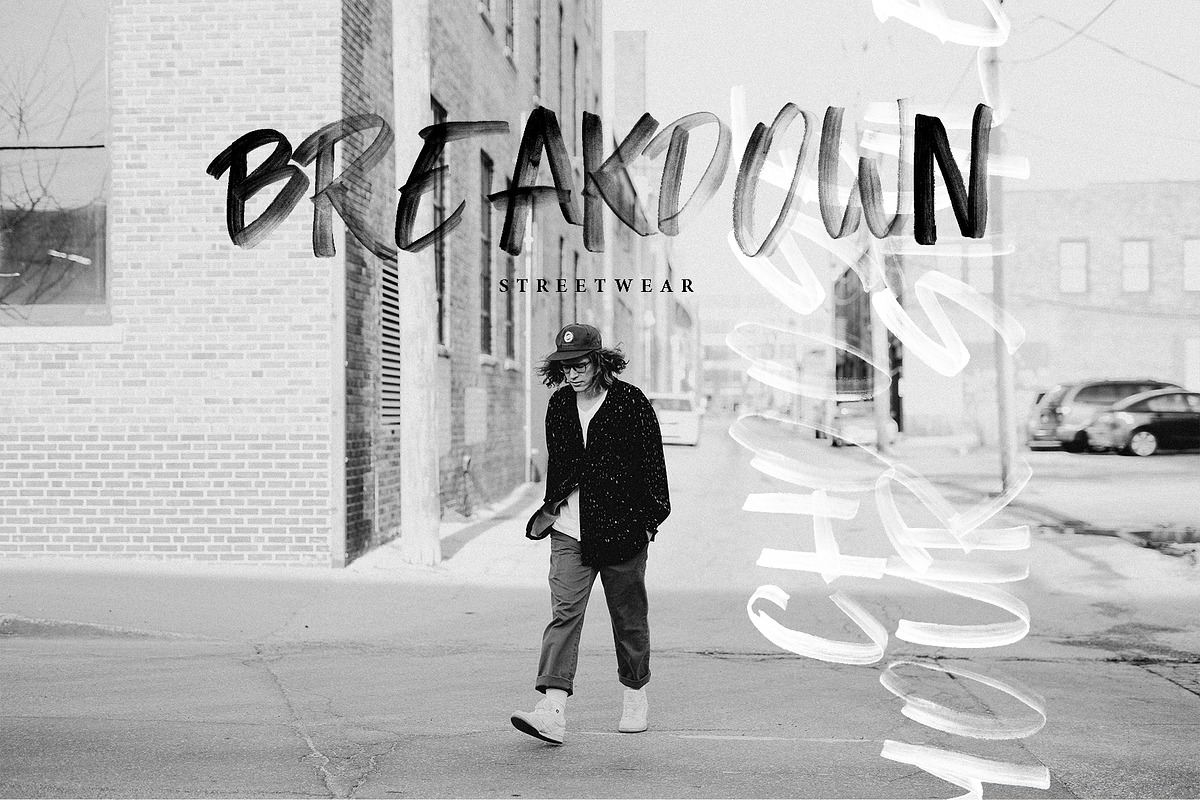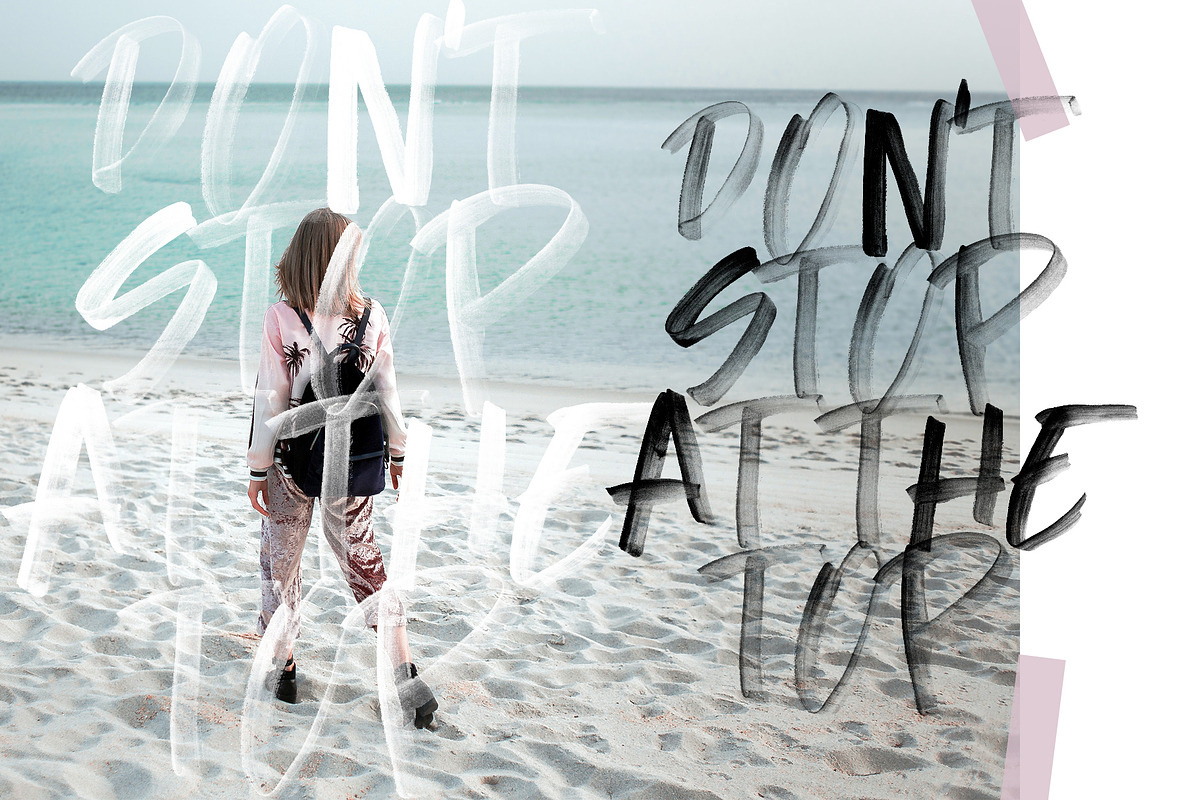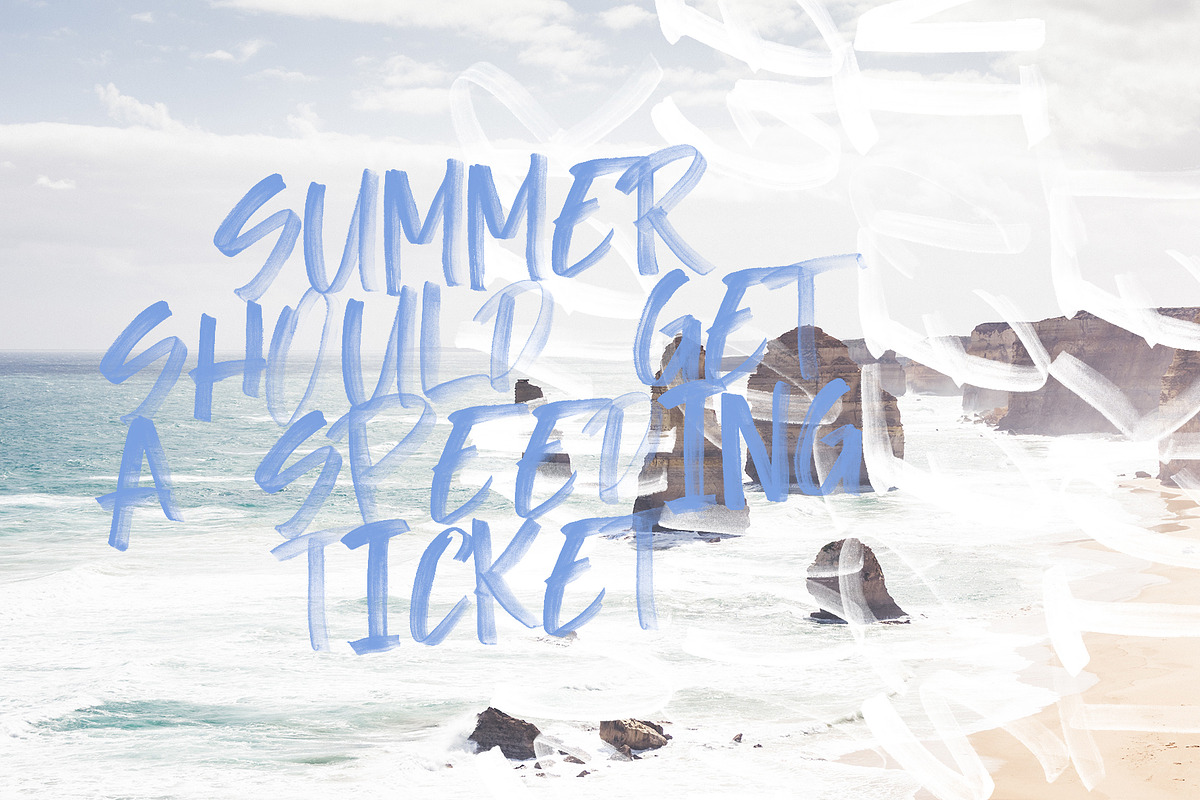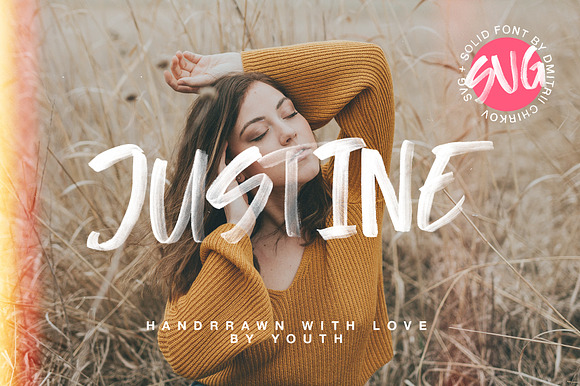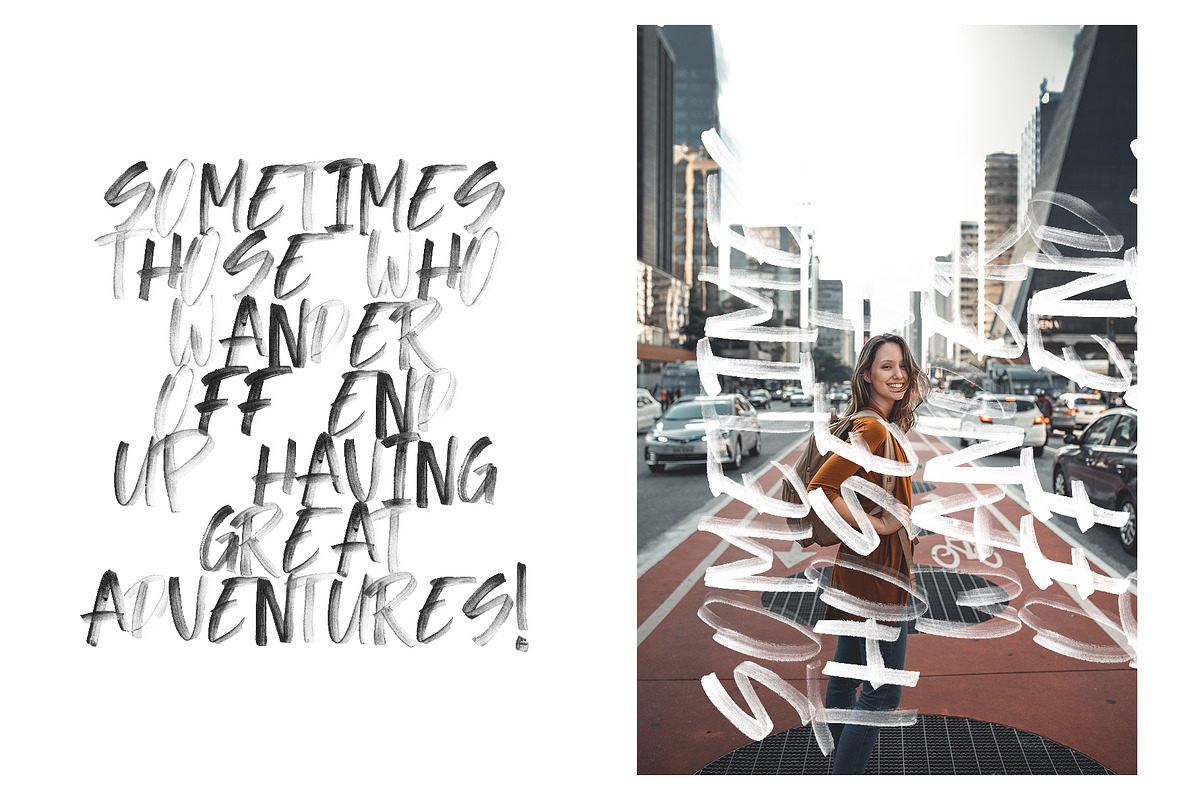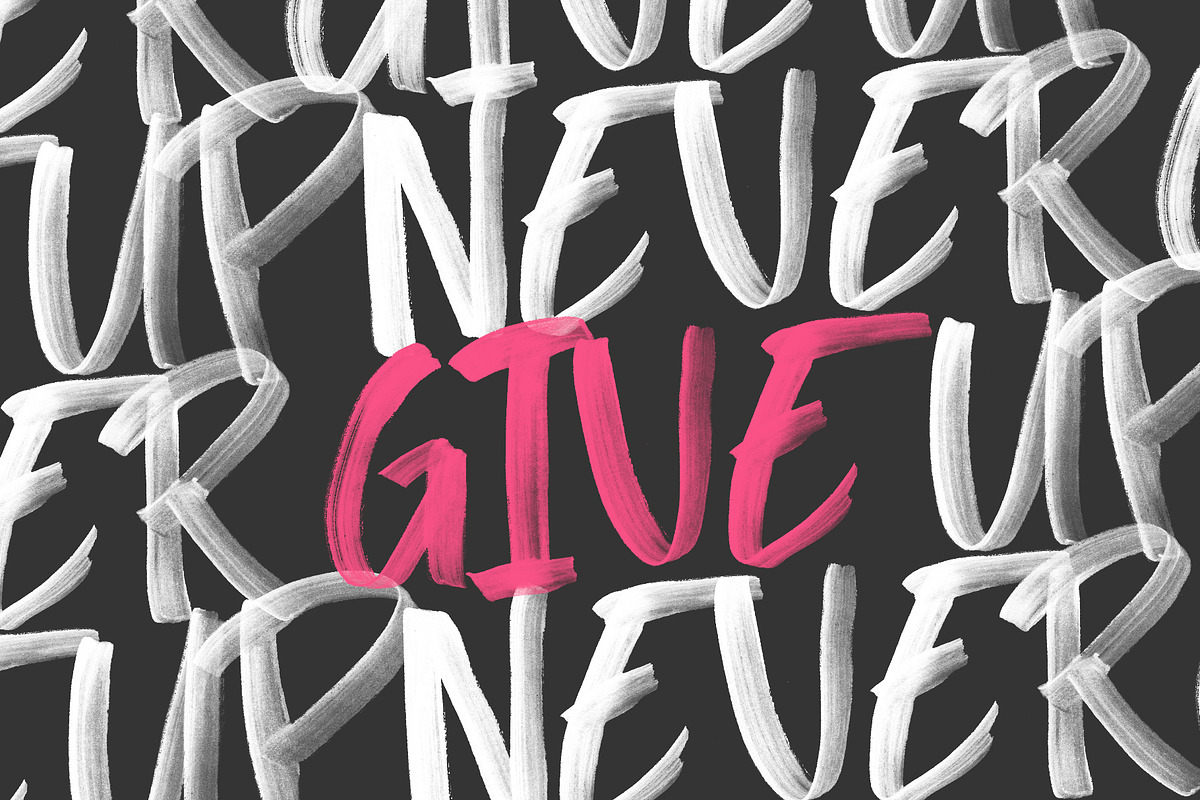
Justine SVG font
The font was carefully drawn in acrylic and transferred to the digital version to create beautiful typographical designs.
Justine SVG Font are made by converting hand painted lettering , unchanged, including all its transparency and high resolution detail - into an actual font - as you type your letters out, it looks like you have just hand painted them.
Justine SVG font by supfonts fits naturally into Branding, posters, packaging, typography.